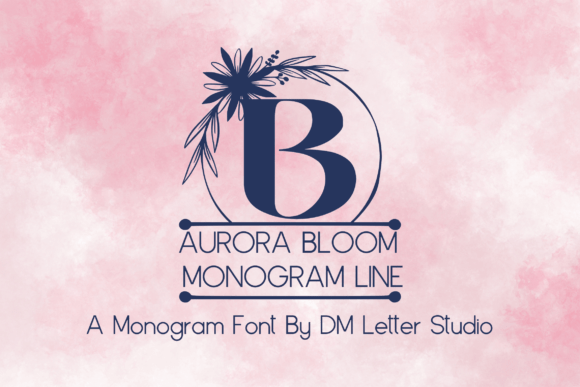
Elegance Unlocked: Discover the Enchanting World of Aurora Bloom Line Monogram Font
Have you ever been in the midst of crafting a design project, only to find yourself stuck on the perfect font? I recall a particularly frustrating experience while working on a wedding invitation project. My client wanted a font that exuded grandeur and sophistication, but everything I tried seemed to fall flat. That was until I stumbled upon the Aurora Bloom Line Monogram Font. It’s been a game-changer ever since.
A Closer Look: What Makes Aurora Bloom Line Monogram Font Special
Crafted with elegance in mind, the Aurora Bloom Line Monogram Font is designed to add a touch of sophistication to any design project. Its intricately refined letterforms and delicate detailing make it perfect for monograms, logos, and personalized branding ventures.
Here’s what I love about the Aurora Bloom Line Monogram Font:
• ✨ Elegant and refined: Perfect for luxury branding, wedding invitations, and high-end stationery.
• ✅ Highly versatile: Works beautifully in both digital and print formats.
• 💫 Unique and distinctive: Adds a touch of charisma to any design project.
And, like any font, it’s not without its quirks:
• 🤔 Occasional kerning issues: Some users may experience kerning issues when using certain character combinations.
• ⚠️ Limited multilingual support: This font may not support all languages or special characters.
The Story Behind the Font: Designer Inspiration
The Aurora Bloom Line Monogram Font was inspired by the beauty of nature and the elegance of luxury branding. The designer aimed to create a font that would evoke a sense of sophistication and refinement, while also being unique and distinctive.